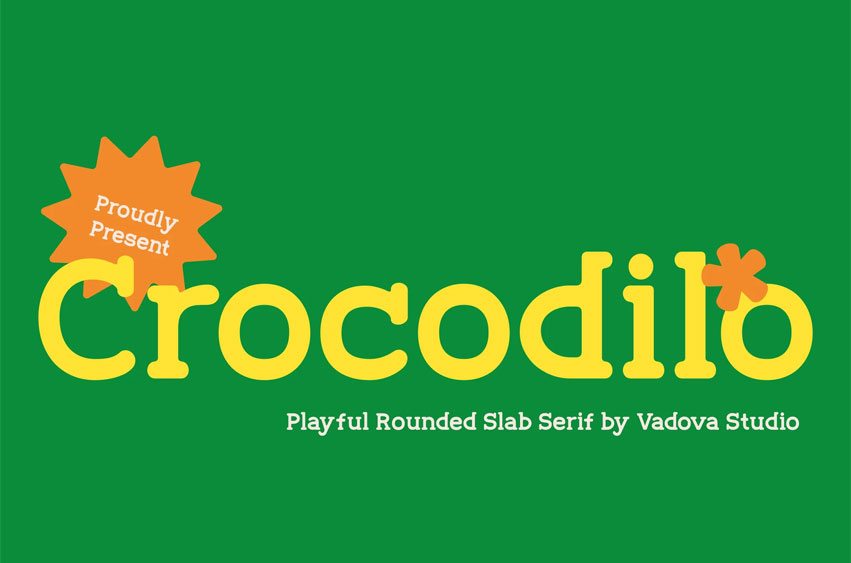
Crocodilo Font is a cheerful and quirky slab serif font designed to light up any project with a splash of fun and creativity. With its rounded terminals and handcrafted curves, it brings a warm, inviting energy that makes your message feel instantly approachable. Its design is perfect for markets that prioritize youthfulness, friendliness, and emotional connection, such as children’s books, educational materials, toy packaging, and family-centered branding. The slab serif structure gives it a confident stance, while the soft edges and bubbly rhythm make it ideal for projects that aim to feel less corporate and more relatable. That organic feel makes it perfect for designers who want to balance readability with personality.
Crocodilo Suitable for Children’s books and storybooks, Educational material, Classroom posters, Toy packaging and branding, Birthday invitations & party decor, Cartoon logos and game interfaces, Social media for family & parenting content, Kindergarten or daycare branding, Food & beverage products for kids, Seasonal campaigns, Cute merchandise, Community events, Snack packaging, and cafe menus.